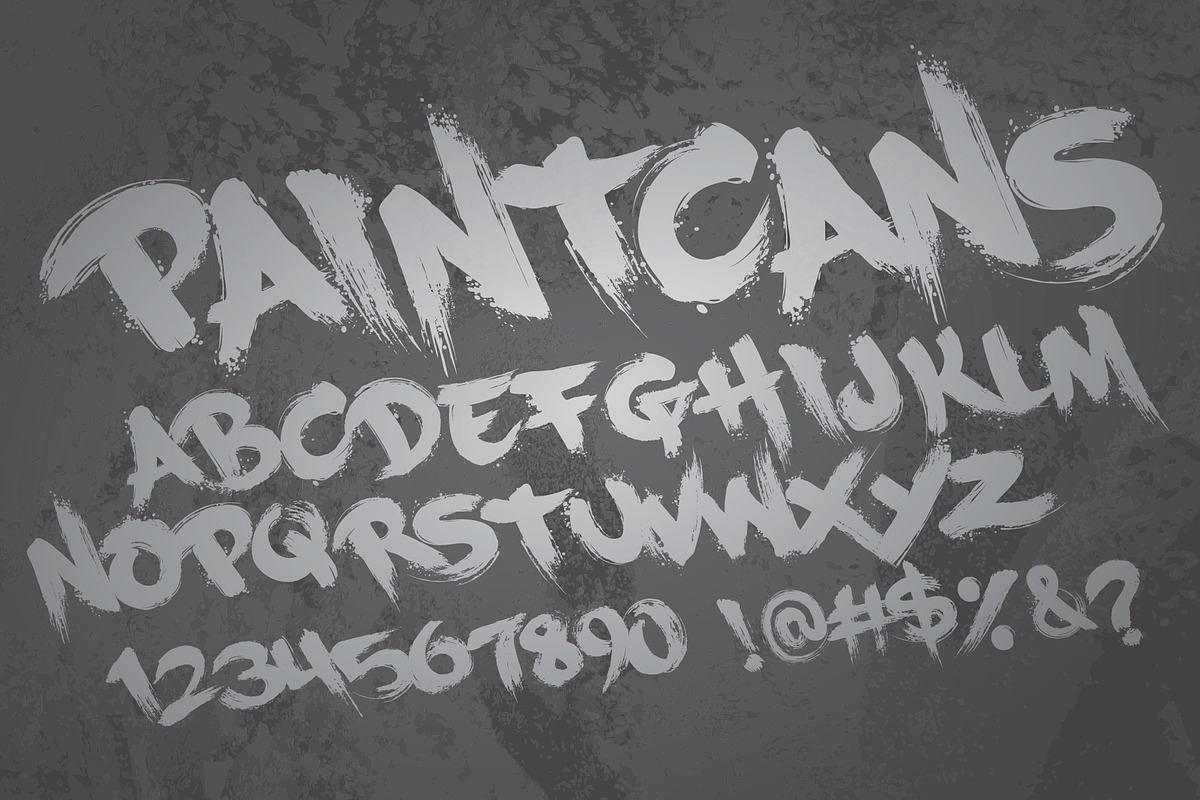
PaintCans Graffiti Font Free Download is a bold, urban typeface inspired by street art and spray paint. With its rough, dripping strokes and energetic flair, this font is perfect for music posters, streetwear branding, graffiti-inspired logos, and creative urban designs.
Designed to bring a gritty, artistic edge to any project, PaintCans Graffiti Font Free Download captures the raw energy and rebellious spirit of the streets. Whether you're creating promotional materials for an event, designing a mural, or building a bold brand identity, this font will make a statement.